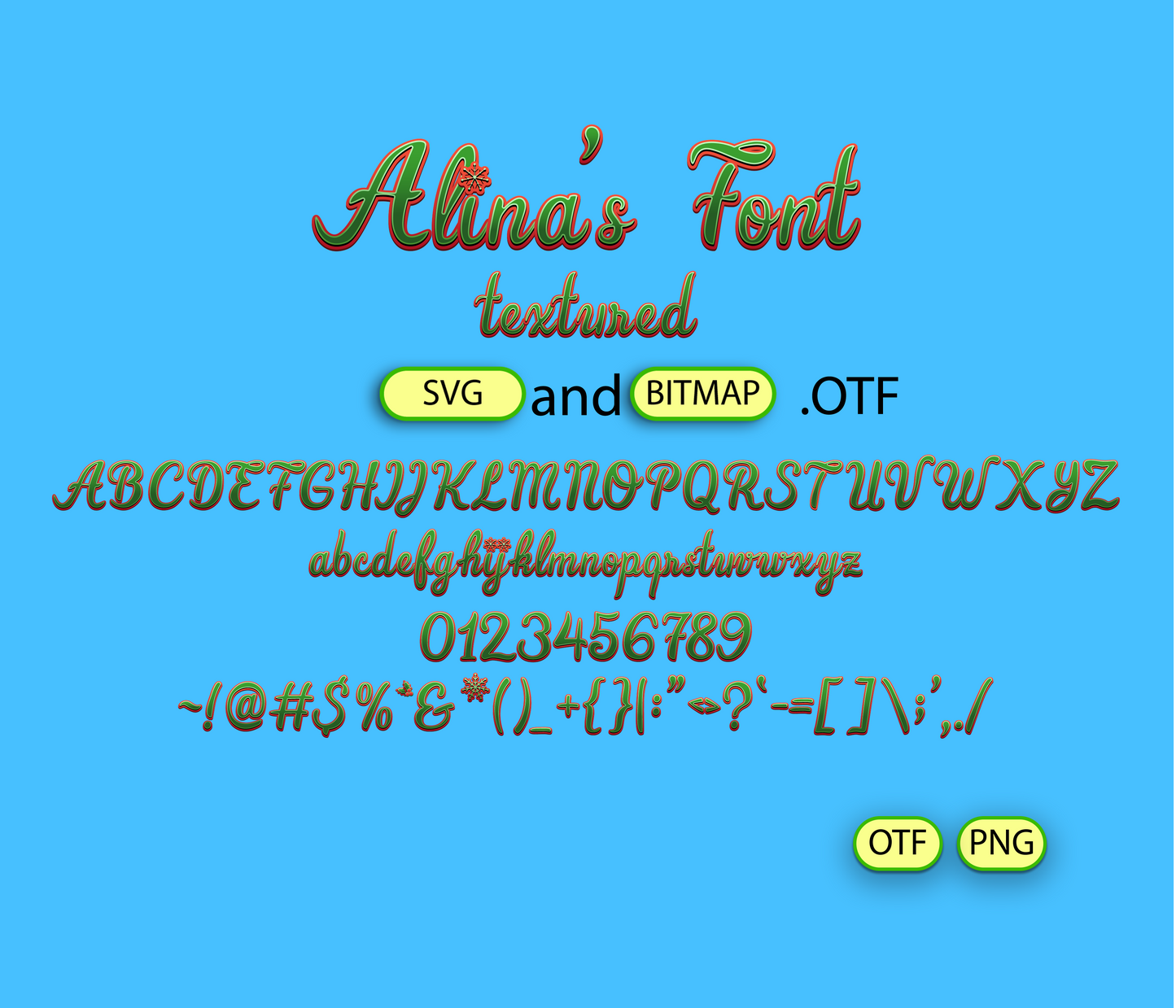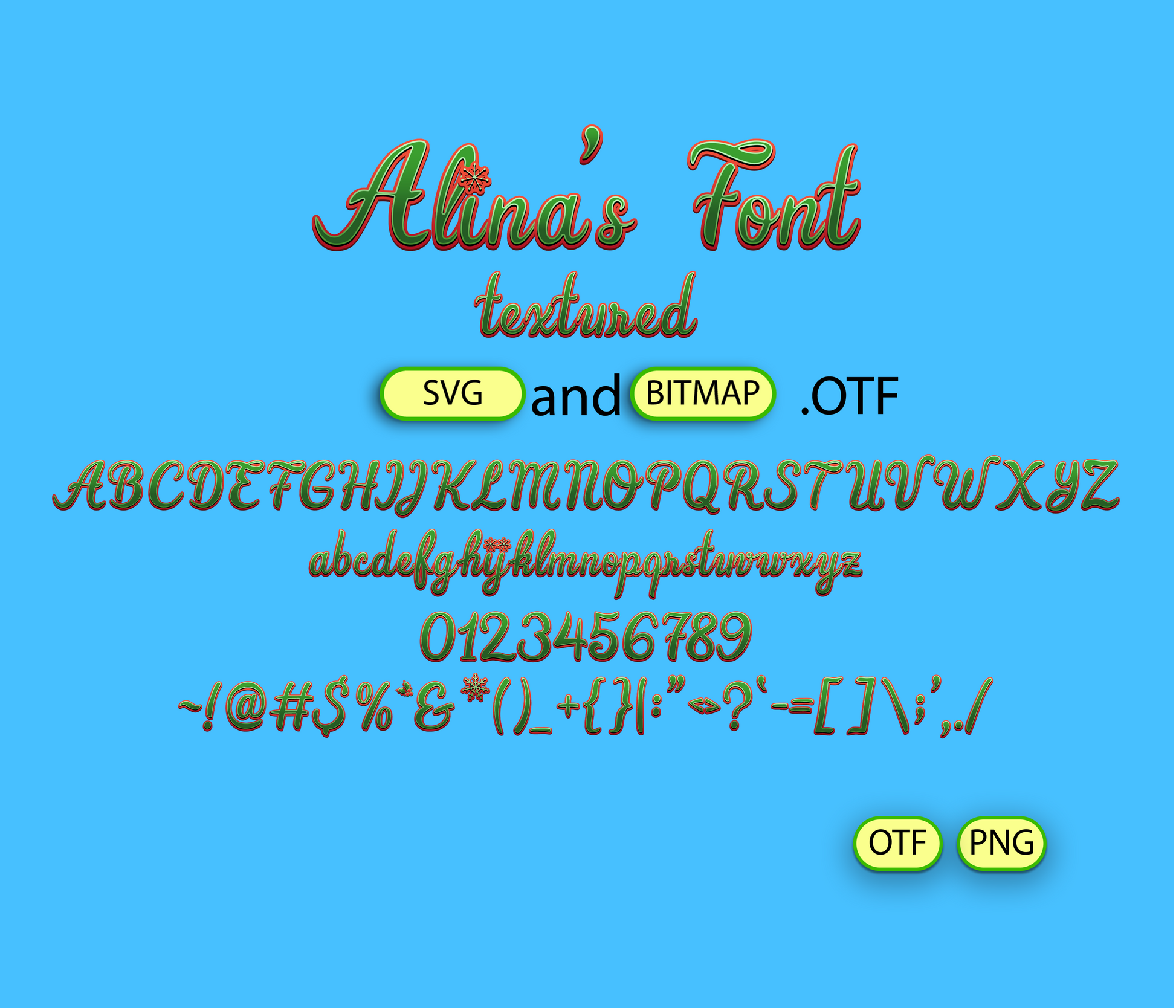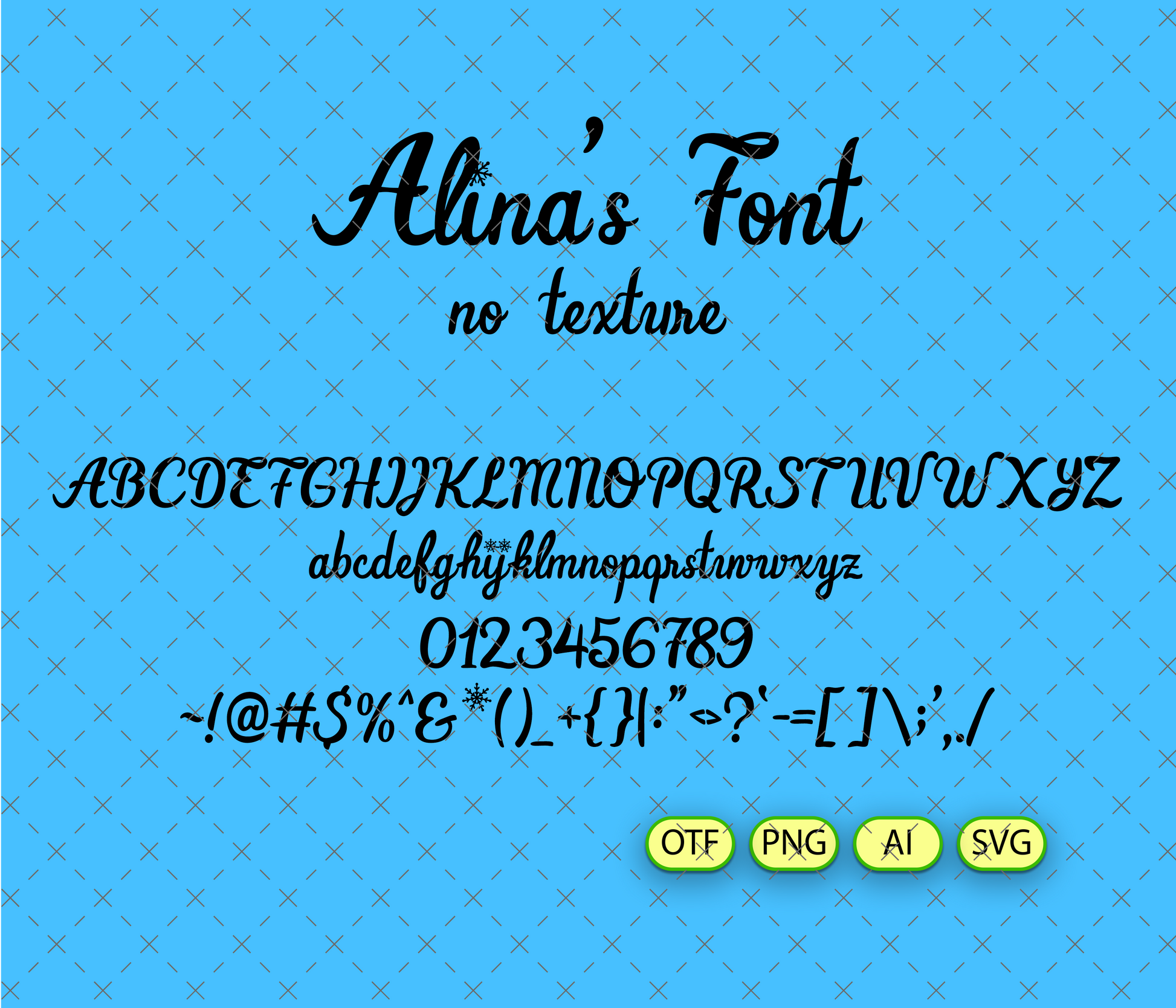
Kids Green Christmas Font Textured
Step into the playful world of eco-friendly holiday celebrations with our Kids Green Christmas Font, capturing the essence of cheerful festive fun and nature-inspired seasonal traditions. Perfect for holiday crafters, sublimation designers, small business owners, and creative professionals, this font brings the joyful, whimsical spirit of green Christmas to your projects. Create heartwarming greeting cards, merchandise, or digital content with the vibrant energy of the holiday season.
Festive Multicolor Typography for Holiday Crafts & Seasonal Design
Our Kids Green Christmas Font features vibrant, playful letterforms with holiday-themed textures reflecting the world of nature-inspired decorations and cheerful seasonal joy.
- Event Promotions: Create enchanting invitations, posters, and banners for Christmas parties, holiday markets, and seasonal gatherings that capture the spirit of fun-filled festive celebration
- Merchandise Design: Perfect for holiday apparel, ornament tags, gift packaging, and accessories that showcase the playful aesthetic of kids' green Christmas magic
- Digital Media: Enhance websites, blogs, and social media with whimsical headers and graphics that express the warmth of nature-inspired holiday traditions
- Craft Content: Add authentic playful charm to greeting cards, sublimation projects, and creative designs inspired by eco-friendly Christmas festivities
- Personal Projects: Bring seasonal joy to scrapbooking, DIY crafts, and home decor inspired by the world of kid-friendly holiday celebrations
Our font pays tribute to the iconic world of playful holiday traditions and nature-inspired festive design, empowering your projects with its cheerful and whimsical spirit. Whether crafting seasonal materials, designing Christmas products, or adding a fun green touch to personal projects, this font communicates the heartwarming essence of kid-friendly holiday magic. Ready to inject kids' green Christmas cheer into your creations? This font is your key to joyful, impactful design.